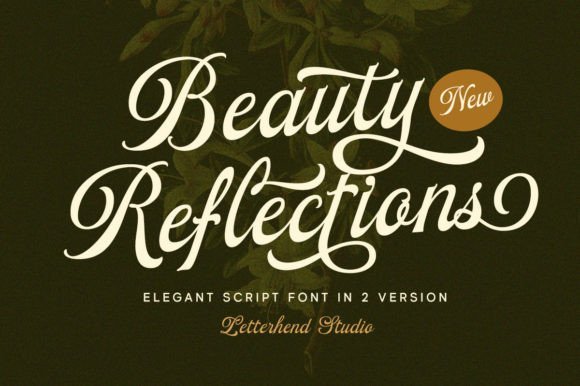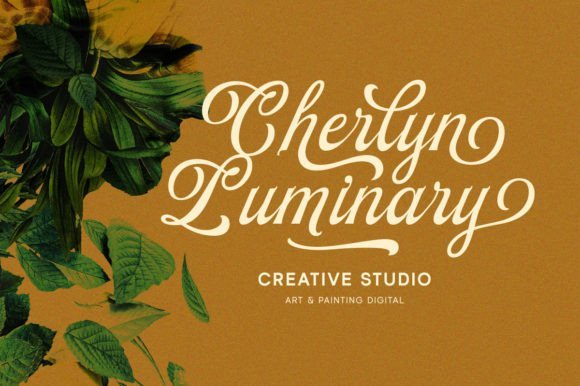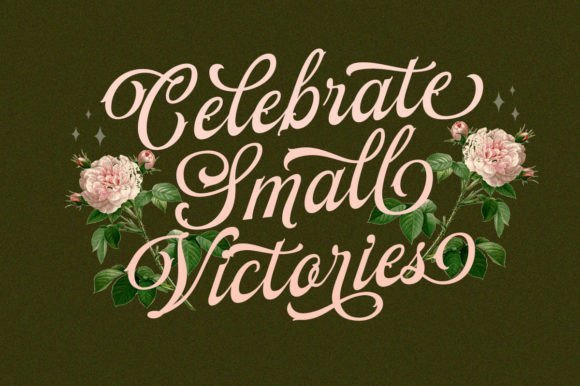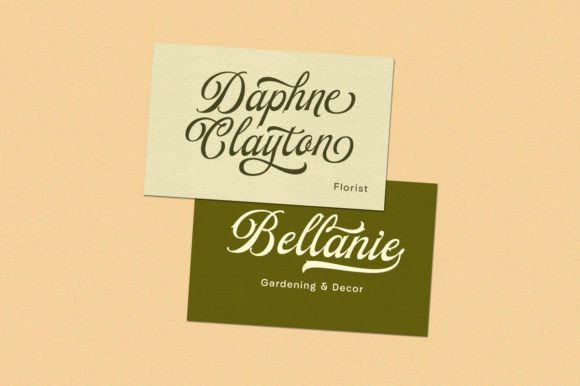
Beauty Reflections Font is an elegant script font that embodies the artistry of calligraphy with a touch of grace. The carefully crafted letterforms have exquisite flourishes and intricate details, showcasing the perfect balance between elegance and luxury.
Beauty Reflections Font